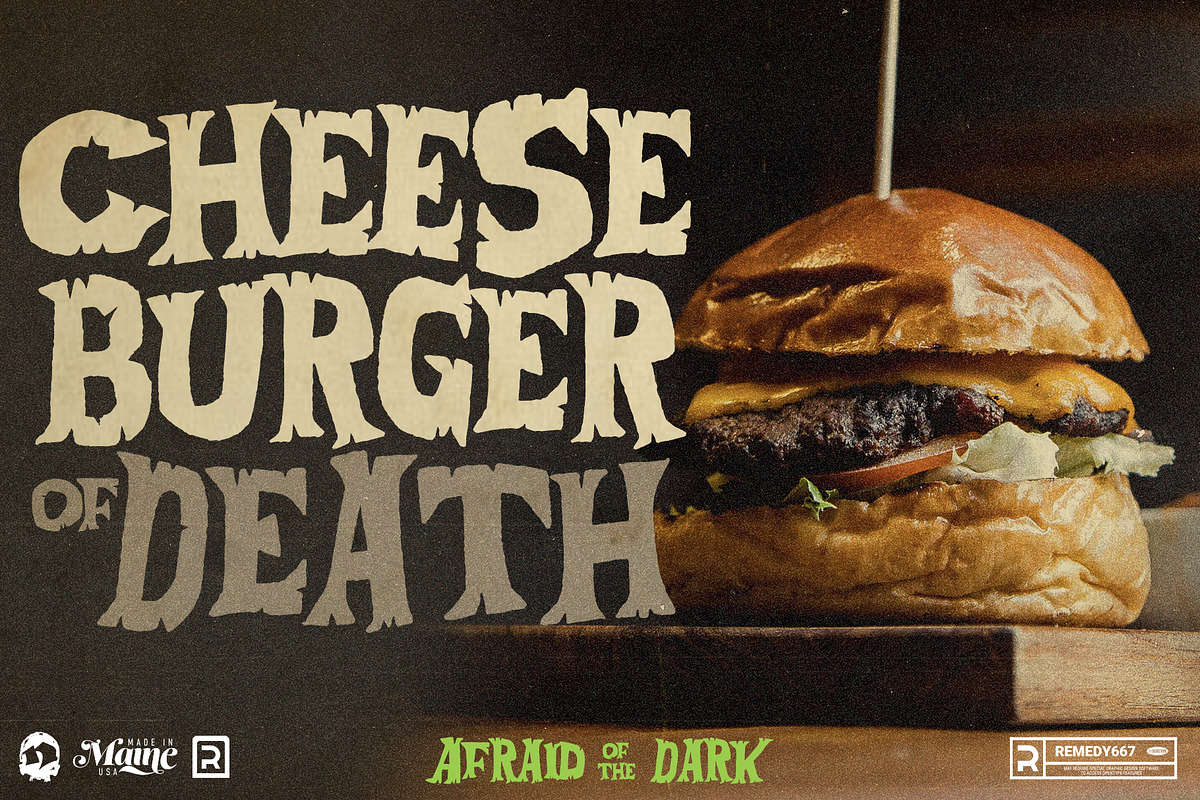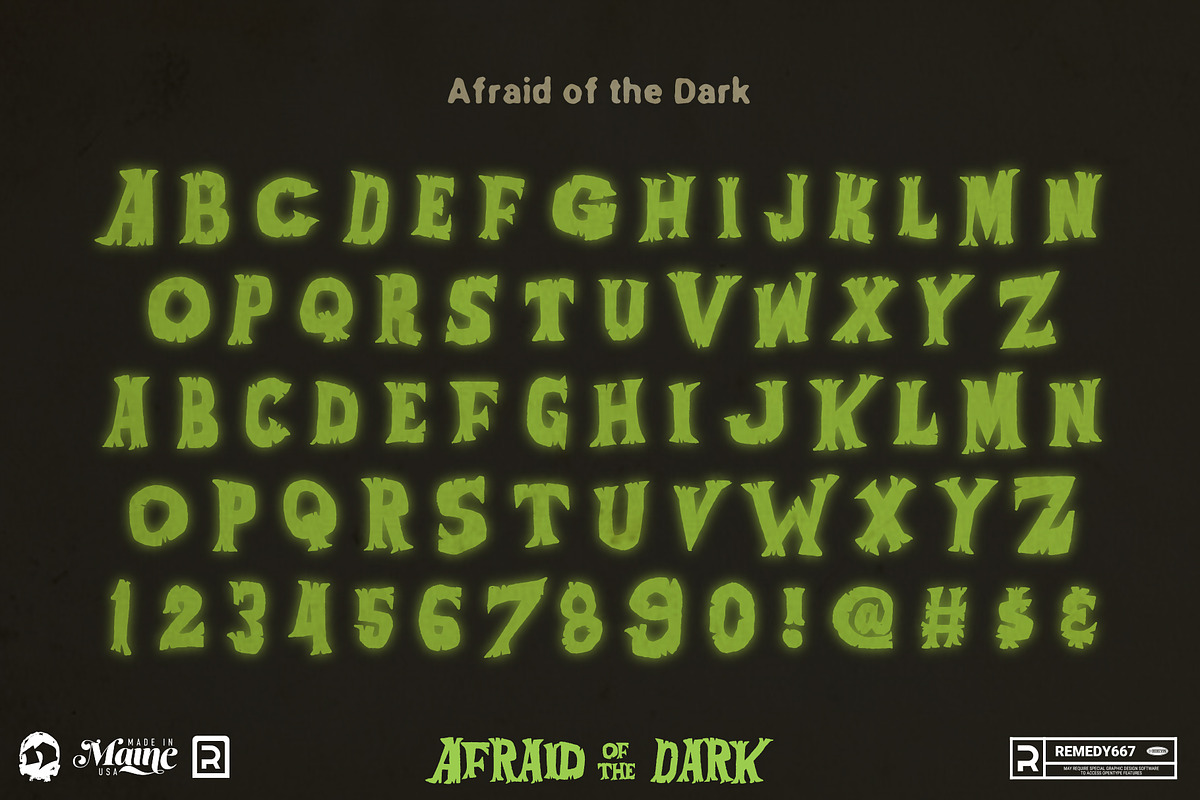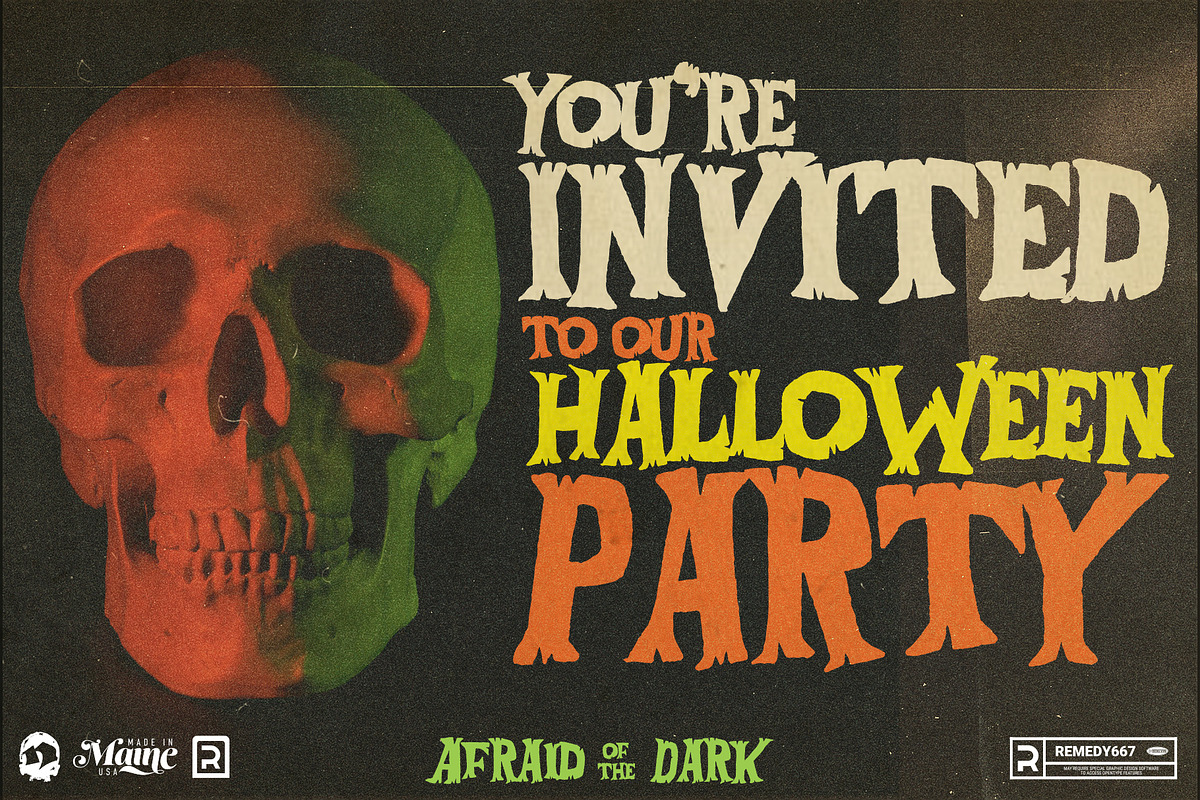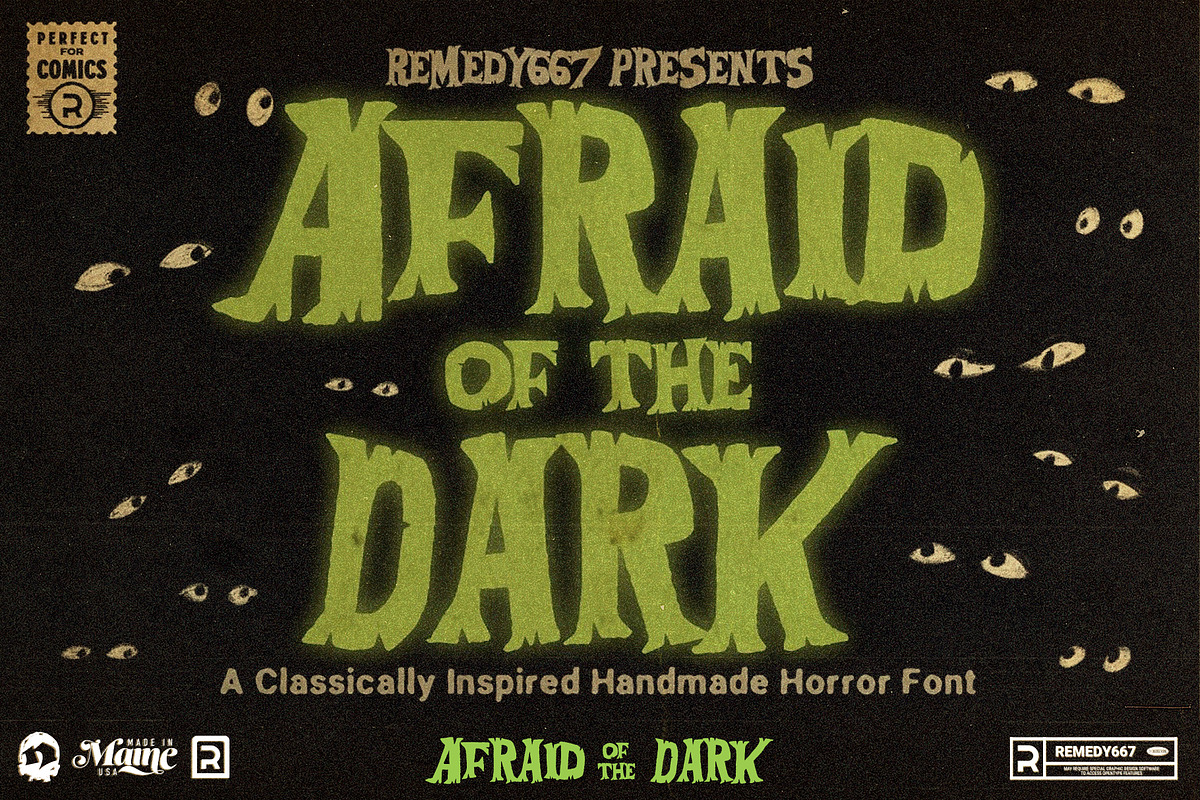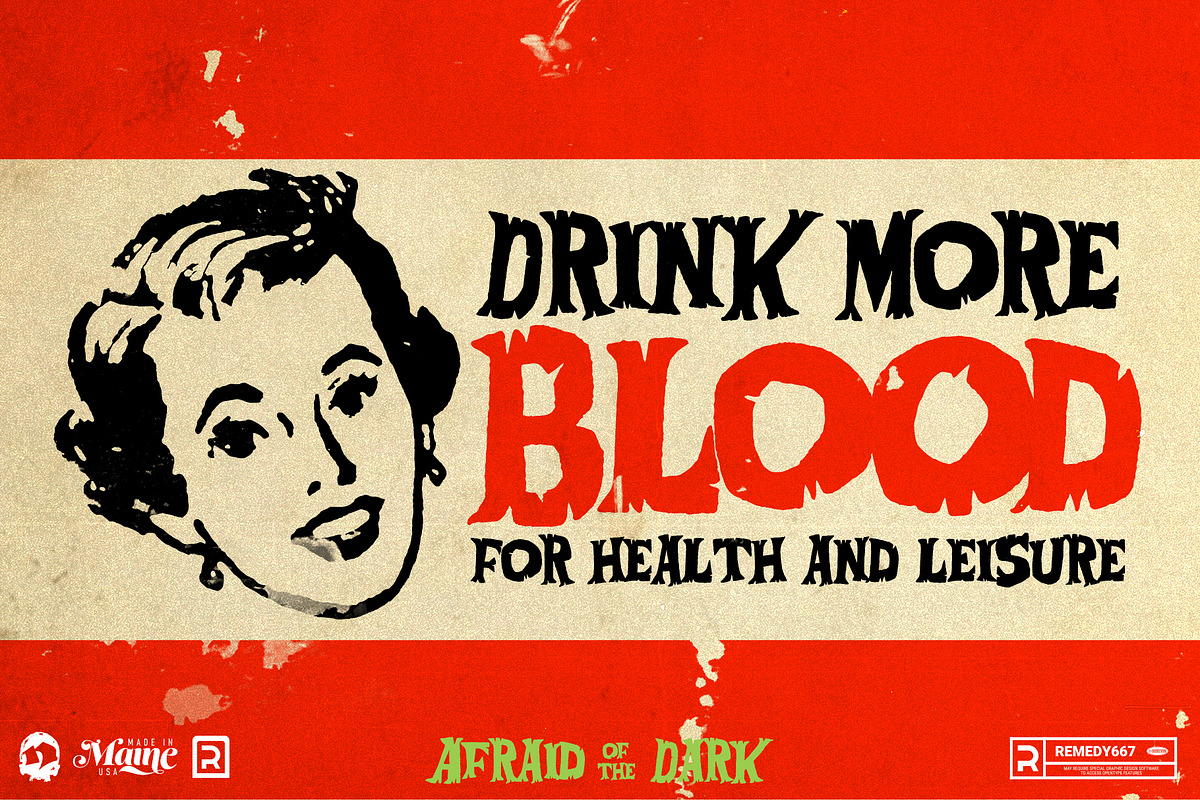
Afraid of the Dark
Afraid of the Dark evokes feelings of classic horror camp from the glory days of William Castle and Vincent Price. Inspired by vintage 70’s horror film posters, and title cards… it’s an instant classic, perfect for a multitude of projects including: headlines, t-shirts, album covers, games and more… bring your packaging projects to life, or are you Afraid… of the Dark?